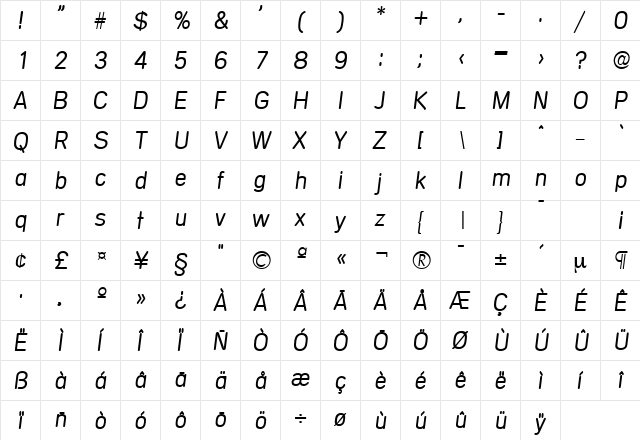
Mercedes-Serial-Light RegularItalic Font Preview
Design Context for Mercedes-Serial-Light Typeface
Mercedes-Serial-Light is a composed and adaptable typeface that performs quietly and consistently across a wide range of design contexts. Its italic angle brings a sense of urgency and motion to the letterforms. The delicate stroke weight brings airiness and refinement to layouts.
Pro Tip: Try Mercedes-Serial-Light for annotation and caption copy alongside an upright companion — the contrast in angle creates a dynamic but ordered typographic system.